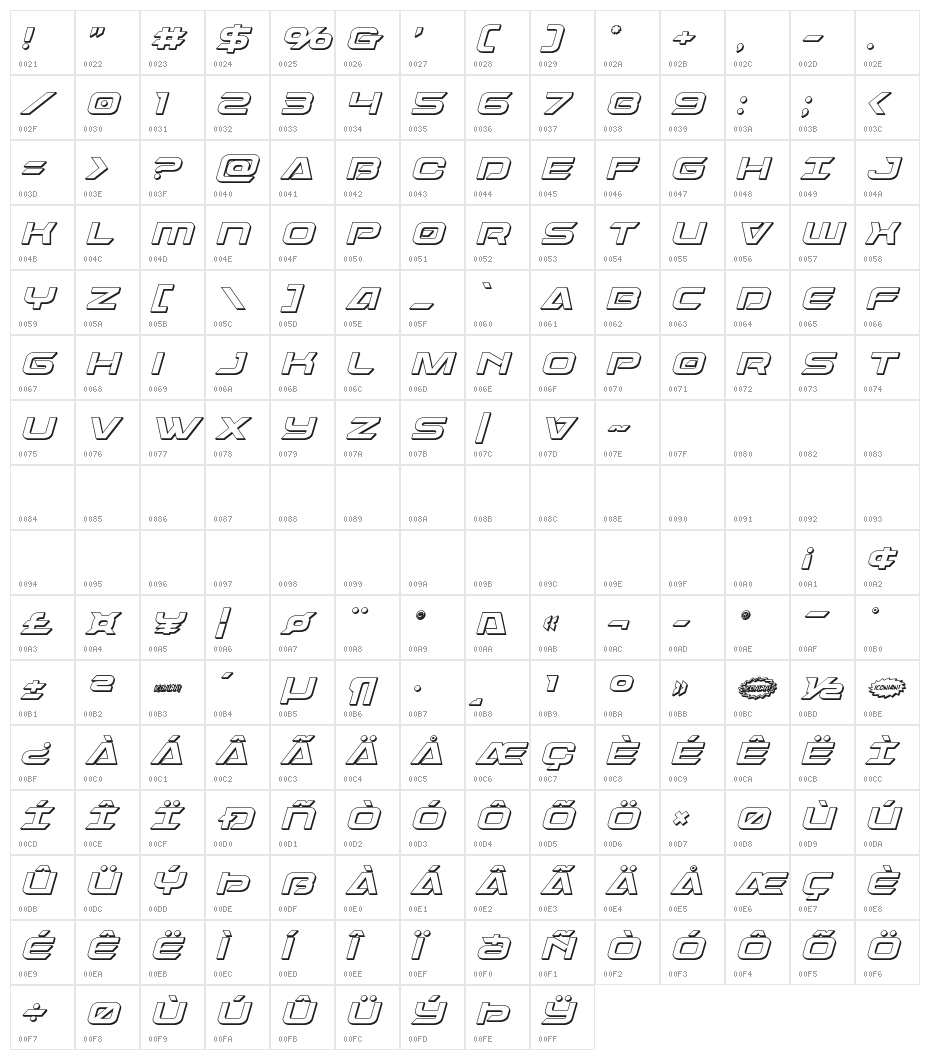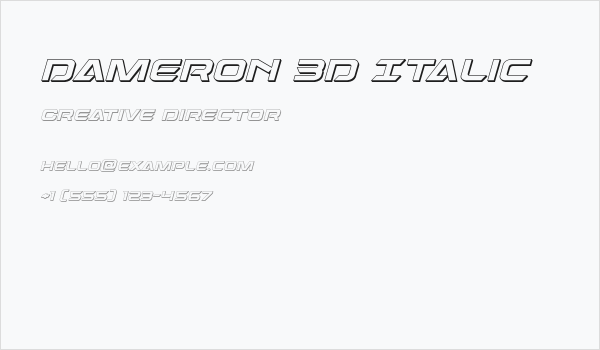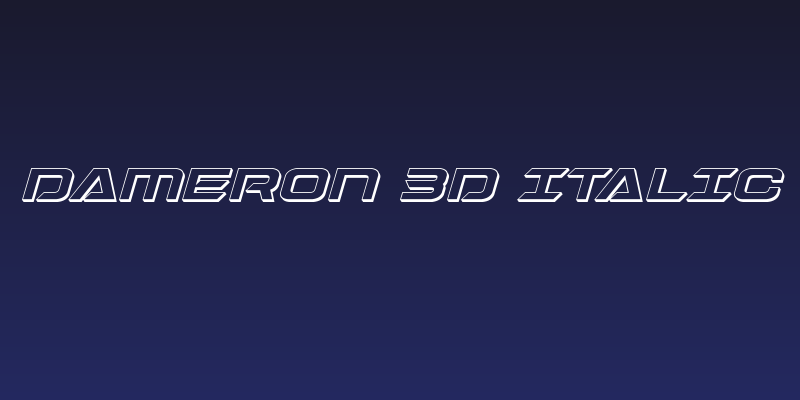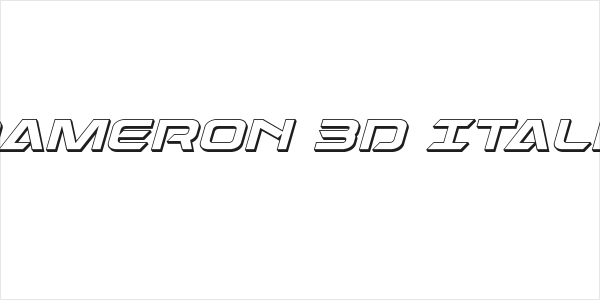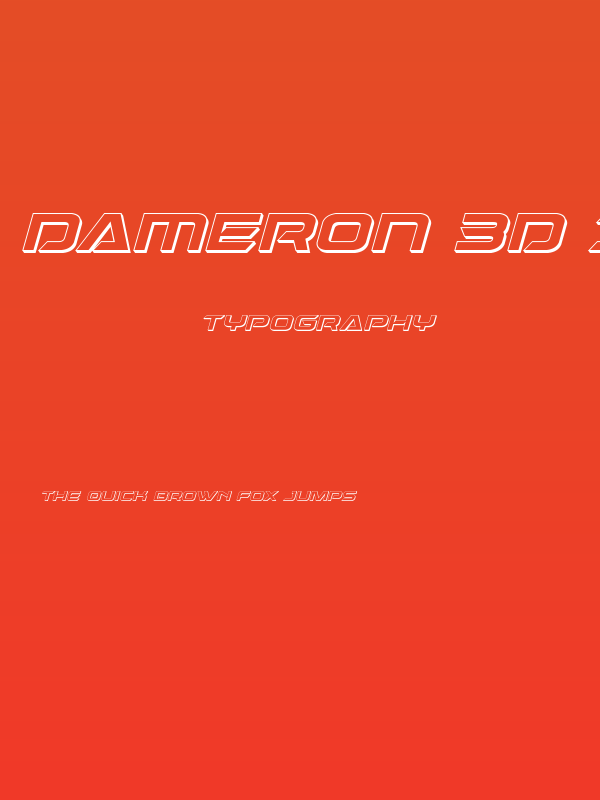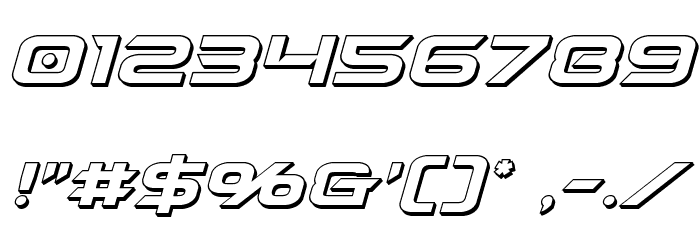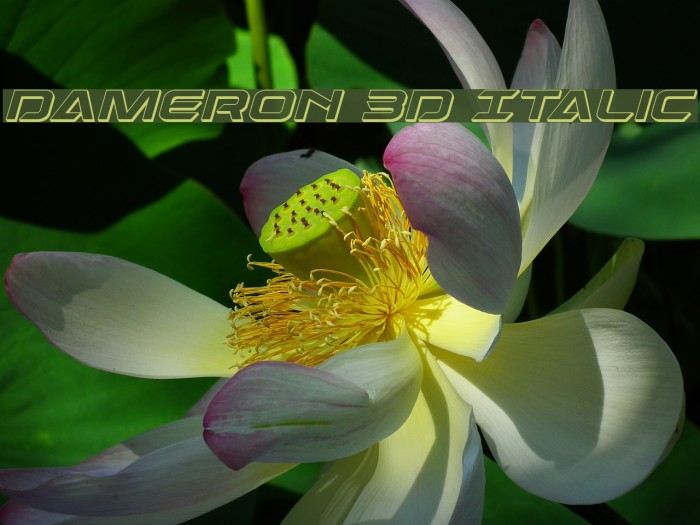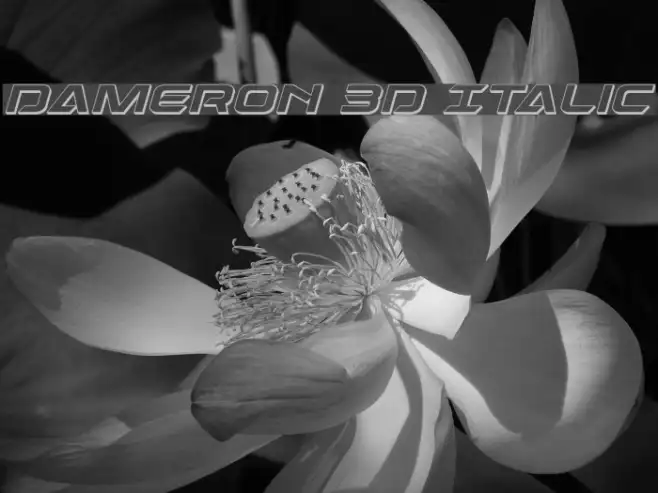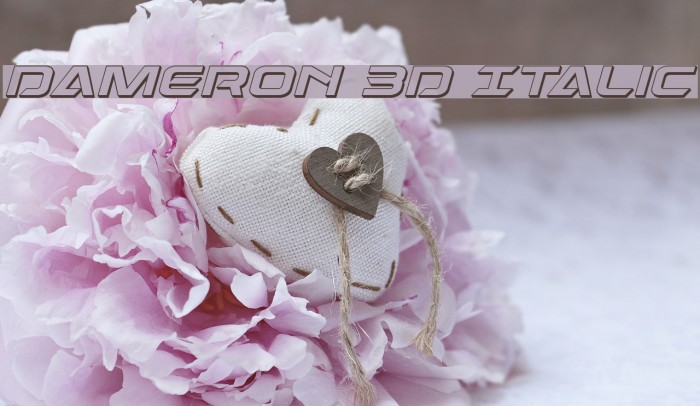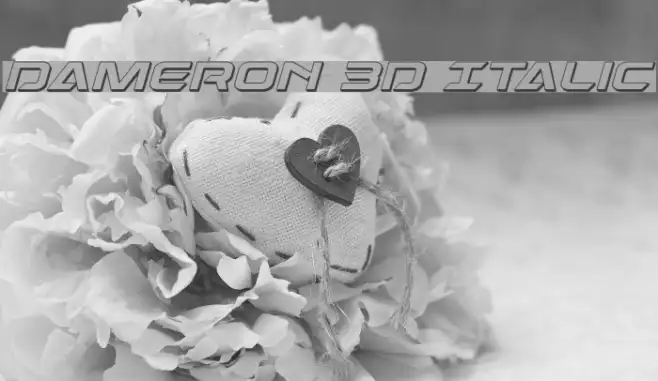
Dameron 3D Italic Font
Dameron 3D Italic Description
This font features a dynamic and futuristic design with a three-dimensional effect, giving it a bold and striking appearance. The italicized style adds a sense of motion and speed, making it ideal for projects that require a modern and energetic look. The characters are outlined, providing a unique visual depth, and the geometric shapes contribute to its contemporary aesthetic. This font is well-suited for use in technology-related themes, gaming, or any creative project that aims to capture attention with its distinctive and innovative style.
| Proposed Projects | Ideal for technology branding, gaming titles, futuristic posters, and creative advertising. |